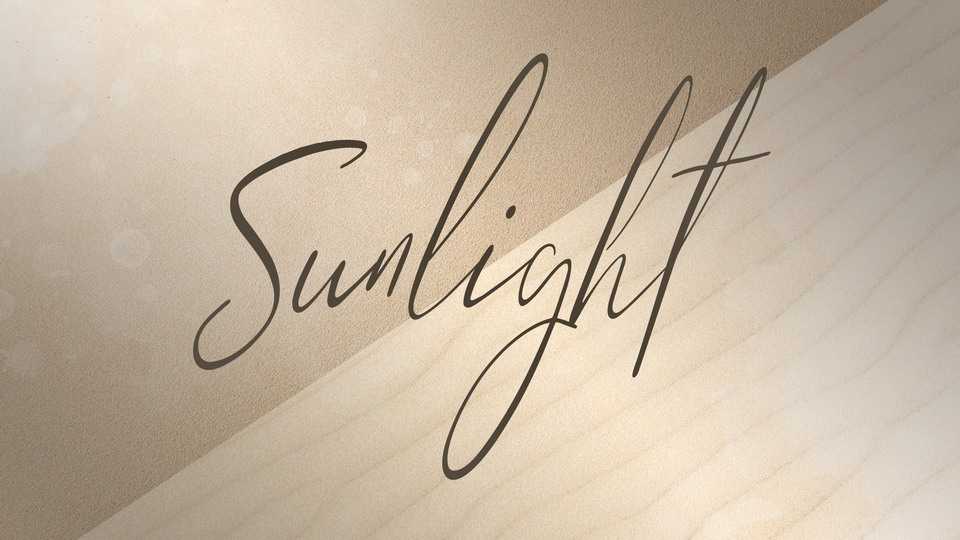
Download Sunlight font, a beautiful clean signature style typeface. It’s a very versatile font that works great in large and small sizes. Perfect for branding projects, home-ware designs, product packaging, magazine headers – or simply as a stylish text overlay to any background image.
Designer: VP Creative Shop